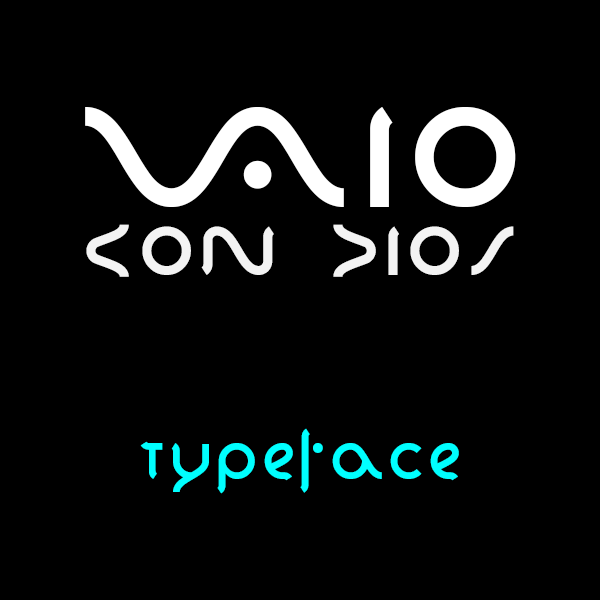
Preview and download Vaio Con Dios Font. Created by architaraz in Techno Sci-fi styles with 100% Free license.
Inspired by VAIO's logo. Use underscore for VA ligature (or enable discretionary ligatures feature). Supports cyrillic. Free for all use, but you can support me either by donating any amount you like to architaraz@gmail.com or by purchasing one of my commercial fonts from http://www.myfonts.com/foundry/Architaraz/. Enjoy! |